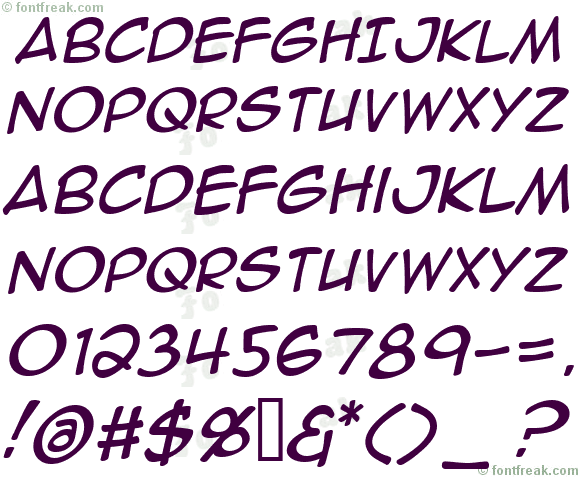
About Anime Ace
Anime Ace is a striking display font by Blambot Fonts, perfectly categorized as a decorative font. Designed by Nate Piekos in 2001, this font captures the dynamic essence of anime culture with its bold and energetic style. The visual characteristics of Anime Ace include a heavy stroke weight that imparts a sense of strength and impact, while the slightly rounded edges add a playful touch. Its unique letterforms feature a moderate contrast in thickness, making it suitable for various applications where attention is paramount. The spacing between characters is well-balanced, ensuring legibility while maintaining a lively aesthetic.
This font shines in several specific use cases, including comic book covers, anime merchandise, video game graphics, and promotional materials for conventions or fan events. Its vibrant style makes it an excellent choice for content creators looking to evoke a sense of excitement and adventure in their work. Graphic designers will particularly appreciate its versatility, as it can easily elevate the visual appeal of posters and social media graphics aimed at younger audiences.
What sets Anime Ace apart is its ability to blend boldness with a playful spirit, making it perfect for projects that demand a unique visual identity. Whether you're designing for print or digital media, the Anime Ace font free download provides a fun and engaging option that will make your designs stand out.